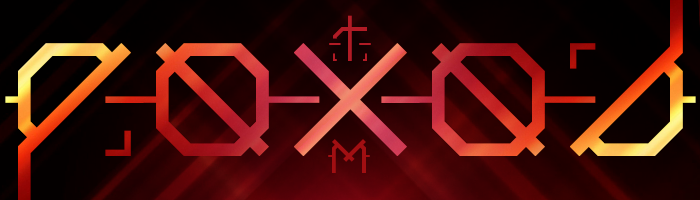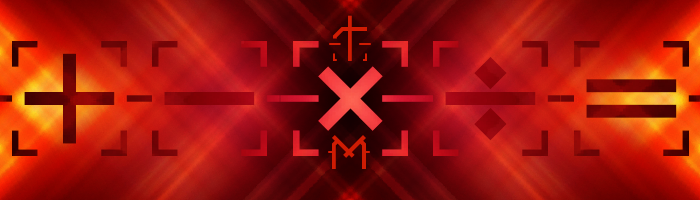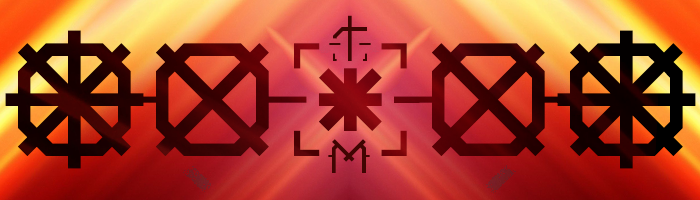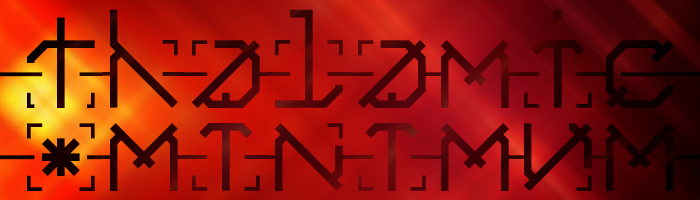
This is so cool. It's like a "new form" of LCD fonts. 10/10+fav
This is definitely one of the coolest fonts that I've seen in a long time. :)
@thalamic - Winty5 is correct; this is a terrific variation of a segmented-syle font. Great job! :^)
This font is very unique. Very electronic tone, e.g. a lcd font or other screen.
Cool technology inspired font. Original and refreshing. Some of the glyphs look like something in a camera view finder. There are a couple of glyphs I had difficulty to recognize: f,4. Great sample pics. 10/10